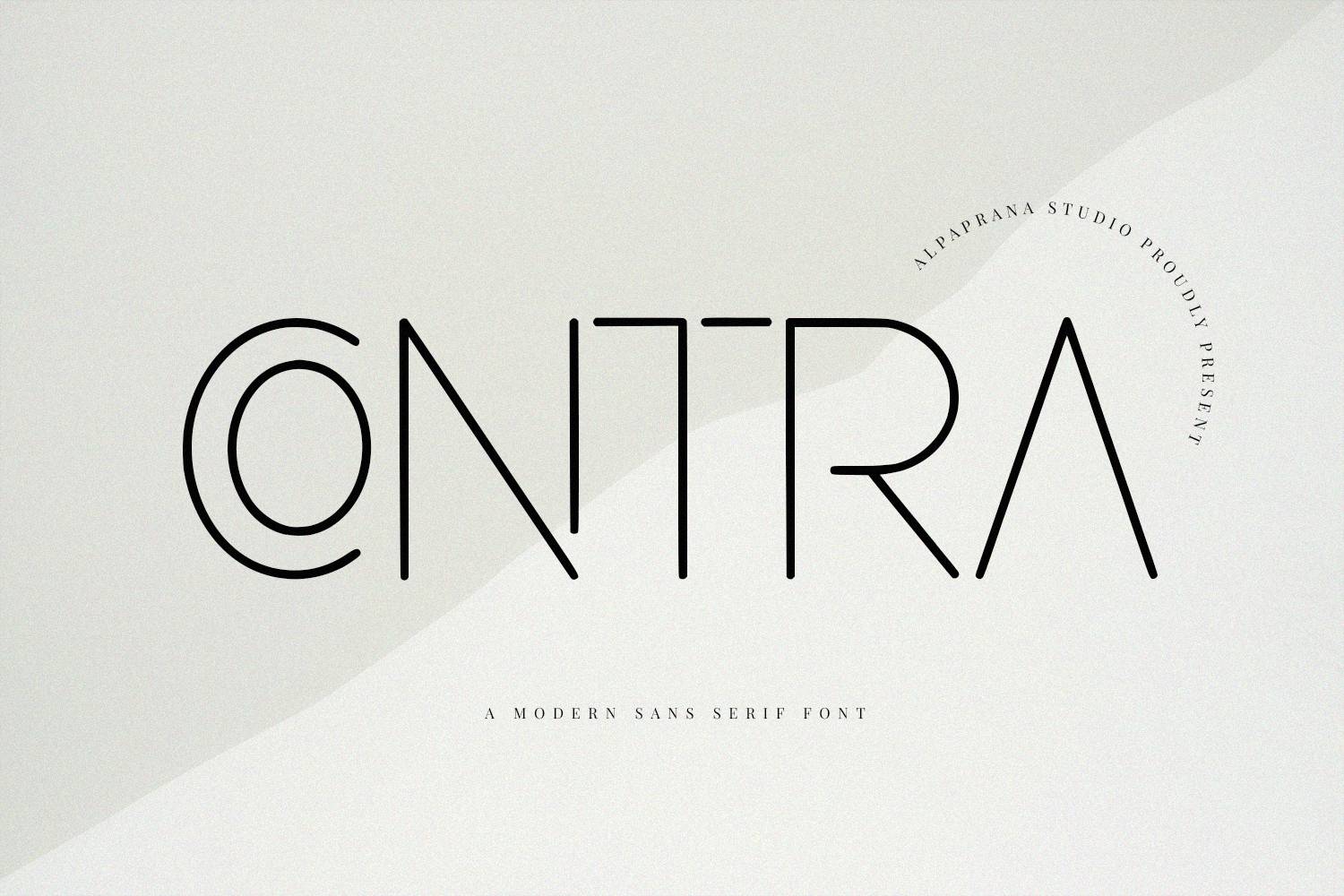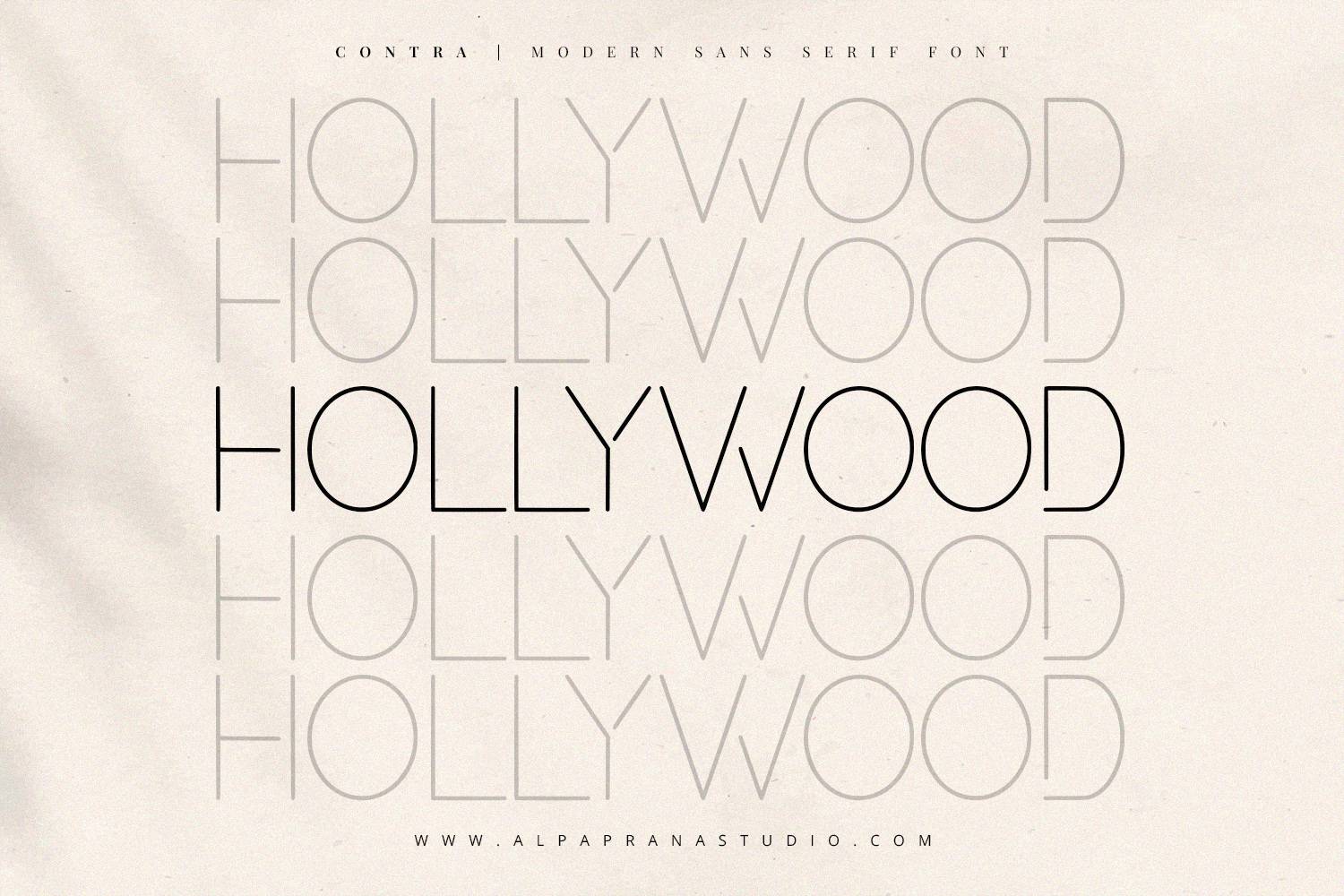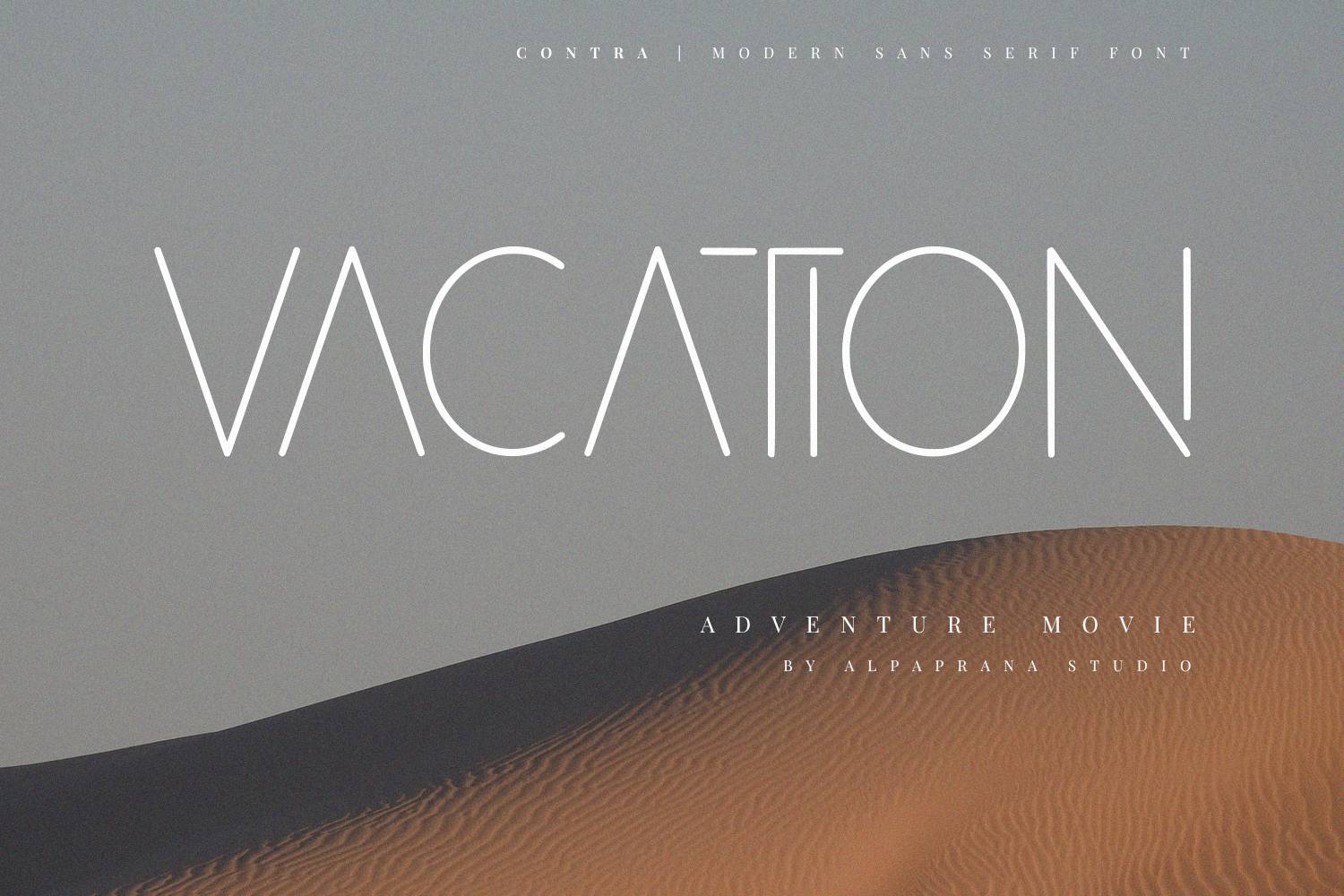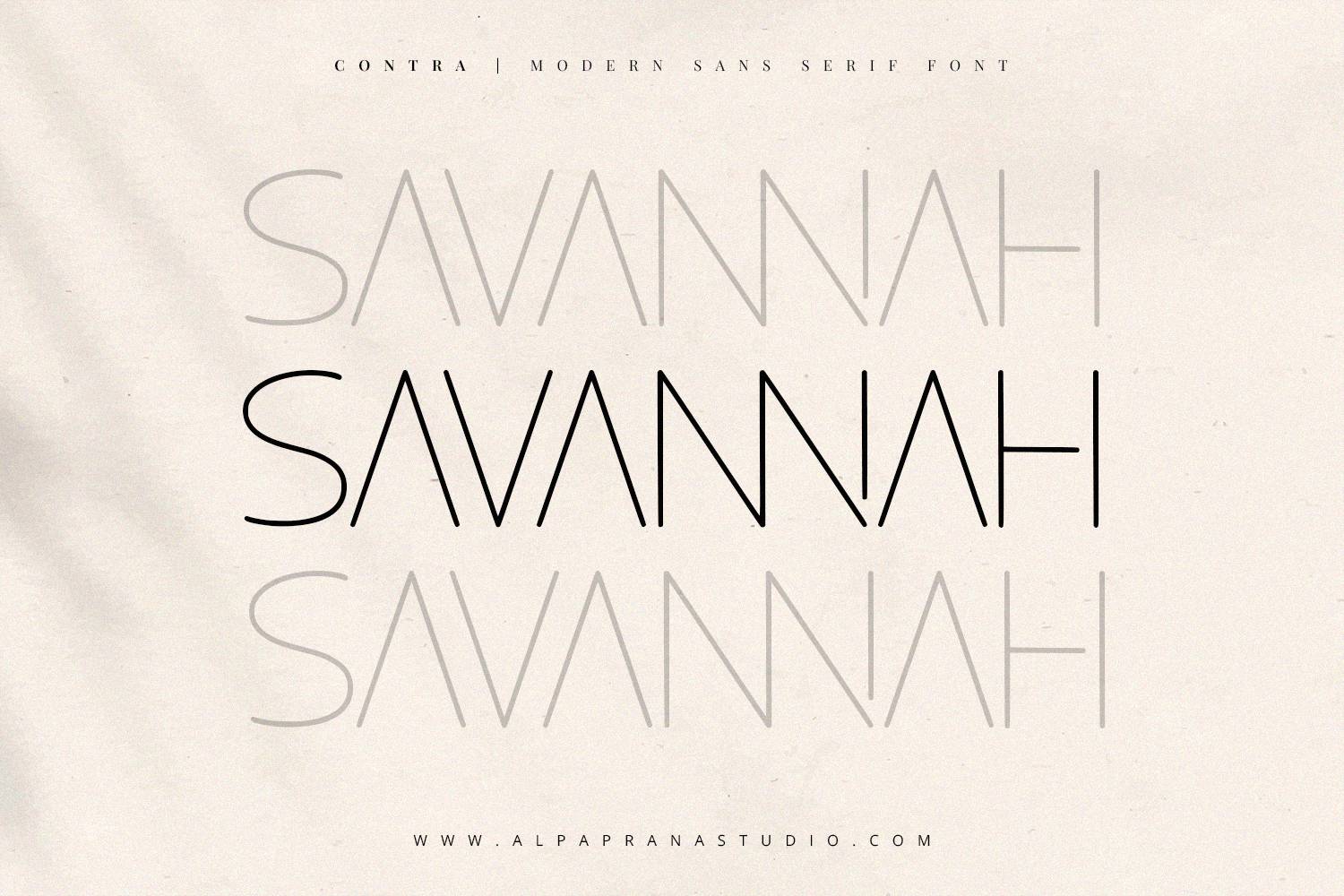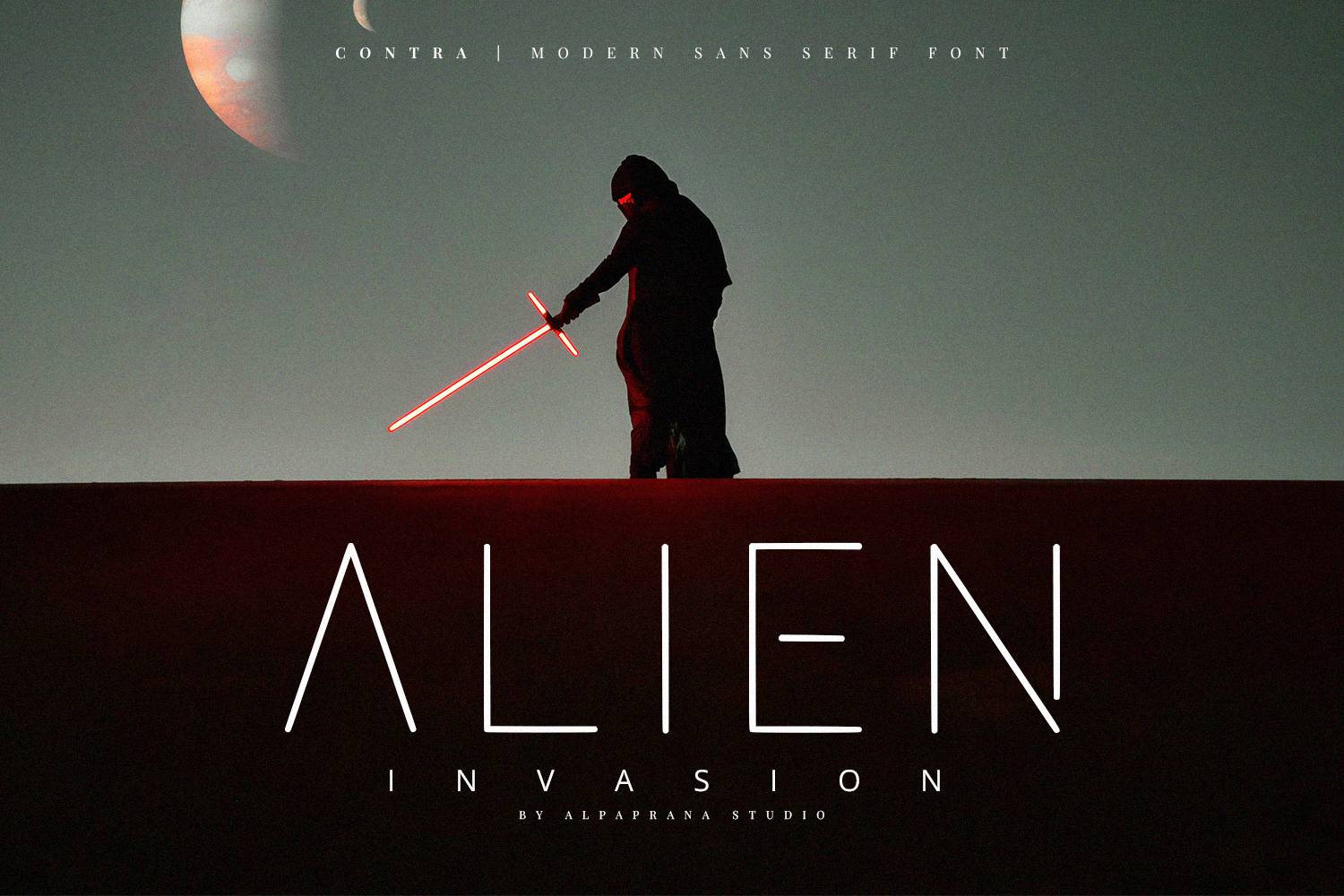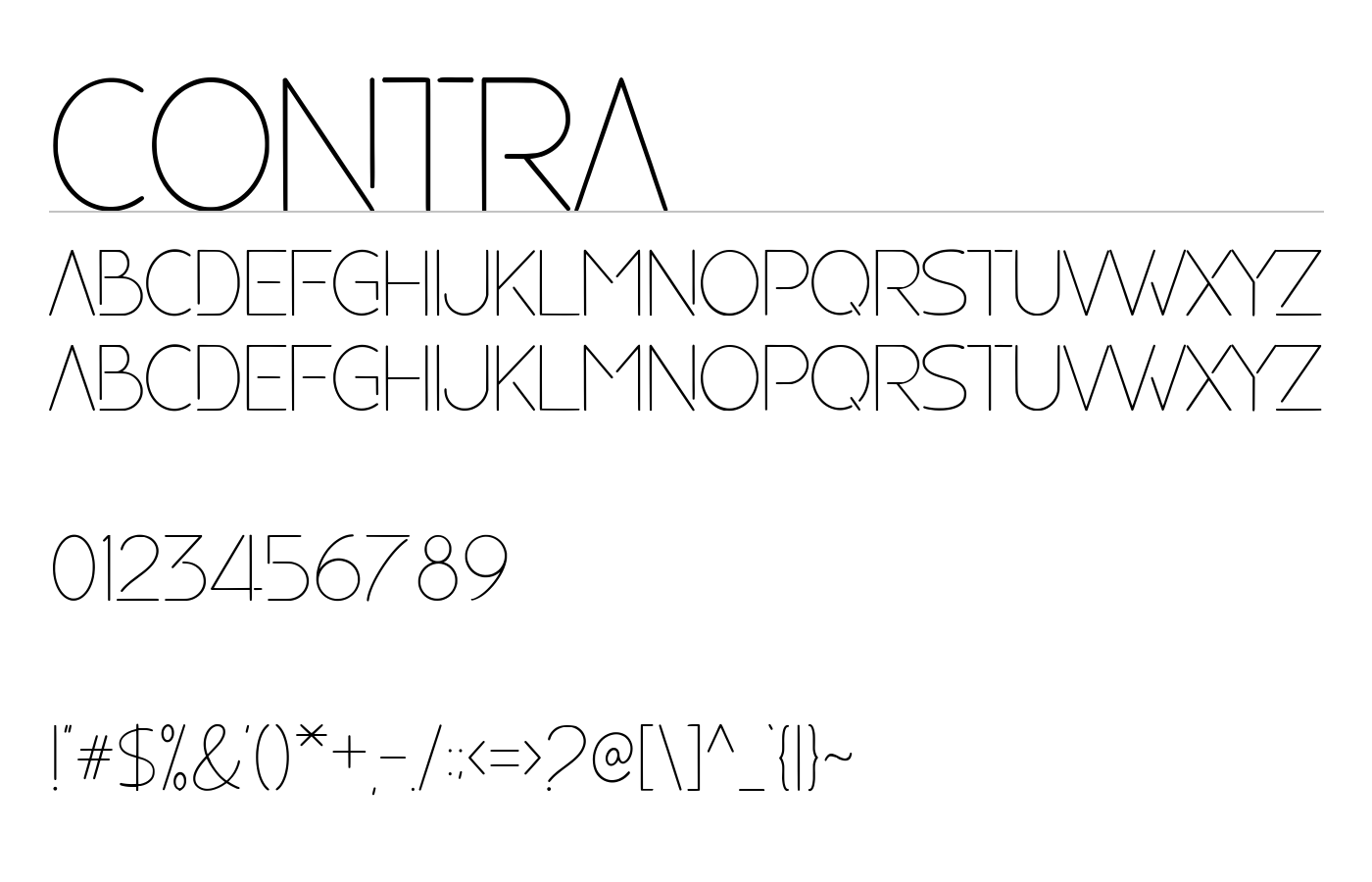
Contra is a sleek, modern sans serif font characterized by its thin, geometric lines and wide letter spacing, lending it a refined and airy feel. The uppercase-only design features elegant, minimalistic letterforms with unique angular details, making it perfect for stylish headlines and contemporary branding that seeks a clean, sophisticated look. This font works well in fashion, editorial layouts, and high-end packaging where clarity and chic simplicity are desired.
Contra Font